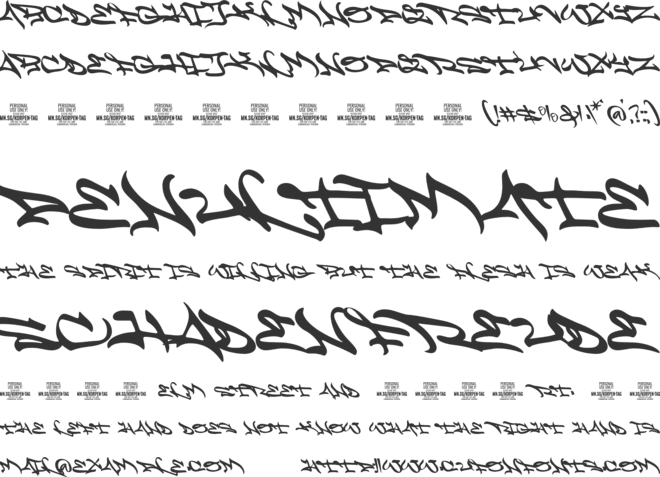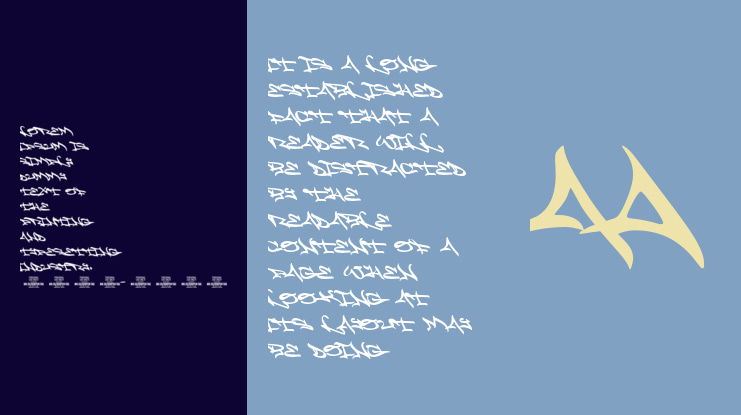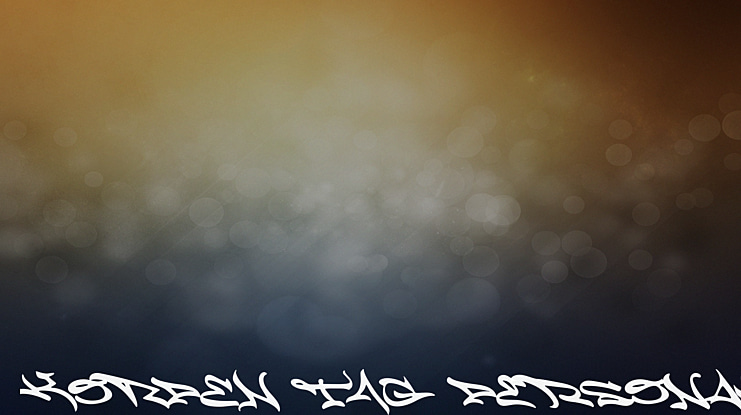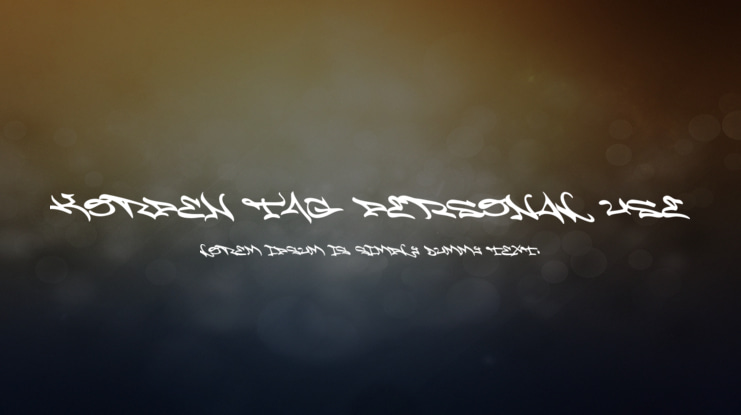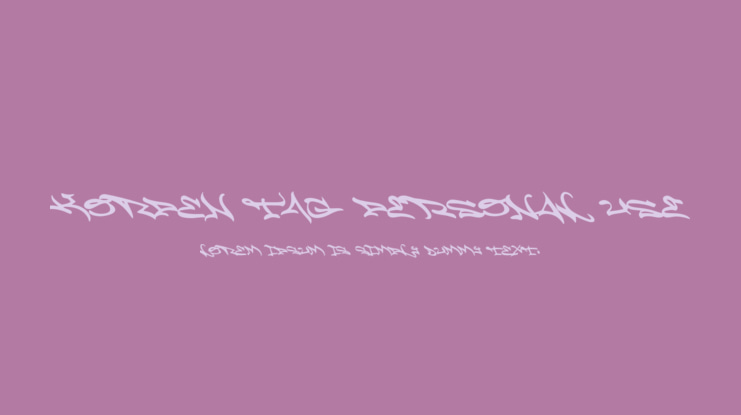
Korpen Tag PERSONAL USE Font
Korpen Tag is a cool and edgy graffiti font that captures the essence of street art and urban culture. With its tag-inspired handwriting and paintbrush strokes, Korpen Tag adds a raw, energetic touch to your designs.
This typeface is created by human hand and artificial intelligence.